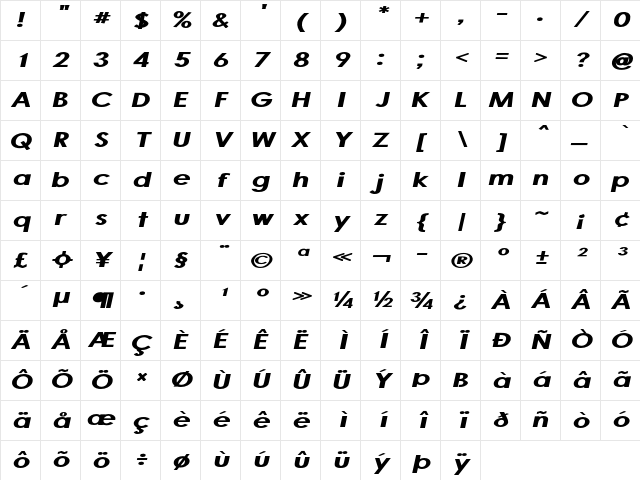
Laria Bold Italic
Laria Family
Laria Bold Italic
Design Context for Laria
Laria is a composed and adaptable typeface that performs quietly and consistently across a wide range of design contexts. The slanted form adds forward momentum and visual energy. Its bold stroke weight gives it real presence on the page.
Pro Tip: Use Laria for emphasis, pull quotes, and subheadings where its slanted energy can add rhythm to the layout.